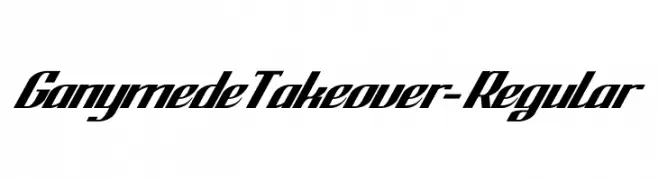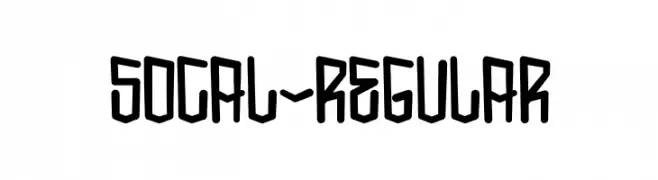
A bold, 3D geometric font with an origami-like design.
A geometric, cube-like font with a futuristic and digital aesthetic.
A 3D geometric font with a modern, playful design.
A distressed, vintage-style serif font with a textured, handcrafted appearance.
A digital, stencil-style font with a retro 8-bit feel.
A bold, distressed font with a rugged, textured appearance.
A sophisticated serif font with tall, narrow letterforms and high contrast strokes.
An elegant script font with flowing, cursive letterforms and decorative flourishes.
A delicate and elegant script font with flowing, graceful strokes.
A bold, brush-style font with an artistic, hand-drawn appearance.
A geometric, angular font with a modern, futuristic style.
A bold, modern font with tall, narrow characters and unique curvature.
A modern, sleek font with elongated, narrow characters and a minimalist aesthetic.
A playful, rounded font with consistent stroke width and smooth curves.
A playful, bone-like decorative font with bold, irregular edges.
A playful, wavy font with zigzag lines creating a dynamic and decorative style.
A playful font composed of star and circle shapes, perfect for whimsical designs.
A playful, chain-like decorative font with interconnected circular patterns.
A playful, bubble-like font with rounded edges and a whimsical style.
A playful, blob-like font with a whimsical and organic style.
A playful, bubble-like font with rounded edges and consistent thickness.
A playful and casual handwritten font with an authentic, personal touch.
A cursive, handwritten font with elegant, flowing strokes.
A bold, geometric font with a modern and structured design.
A bold, geometric font with a futuristic, industrial design.
A geometric, multi-line font with a modern and bold appearance.
A modern, geometric font with a futuristic and structured design.
A playful and jagged font with bold, irregular shapes and dynamic energy.
A bold, dynamic script font with smooth, flowing characters.
A bold, cursive script font with a playful and sophisticated style.